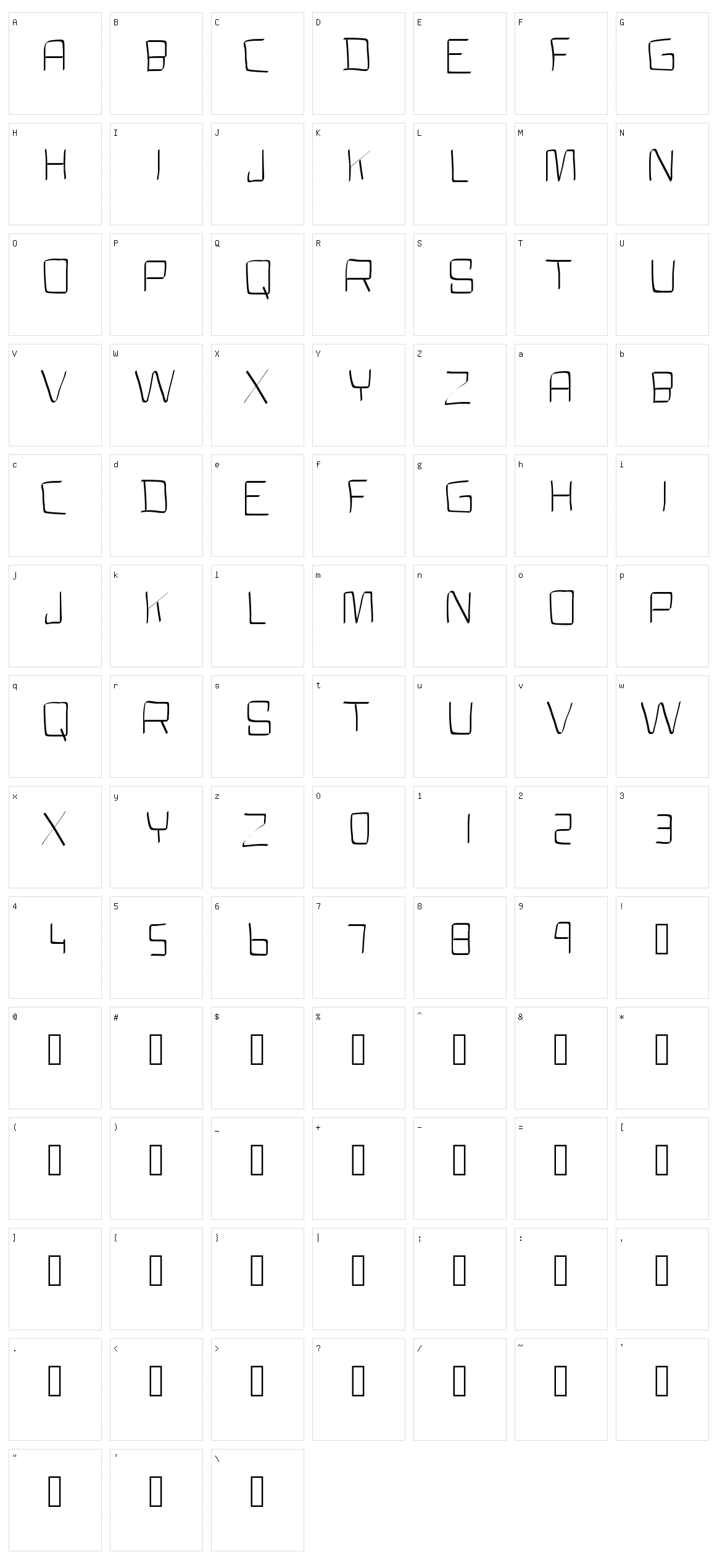
The free font Clock is carefully designed by Gaelleing, showcasing a thoughtful balance of creativity and usability and falls under the Script font style. When you download the ZIP file, it contains only 6.44 KB of font files, making it lightweight and quick to download. Please review the license details below to understand permitted usage and distribution rights. If license information is not available, we recommend using this font for personal projects only or contacting the author directly for commercial usage permissions.